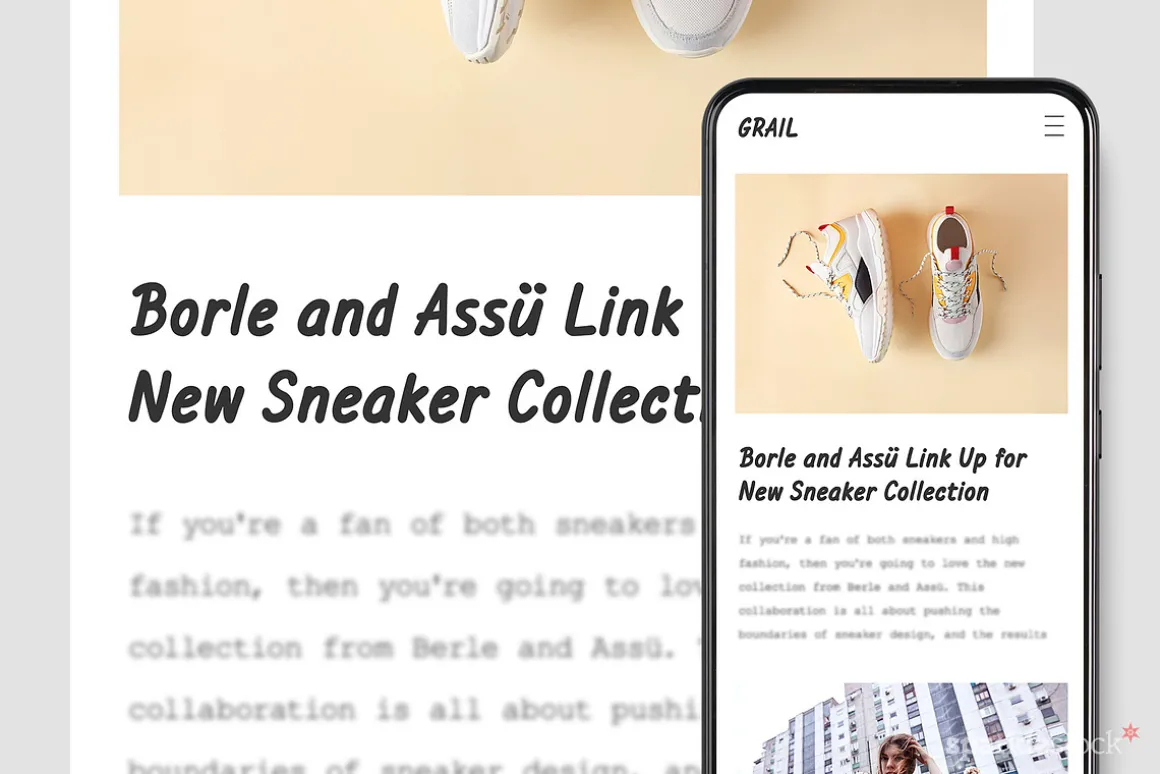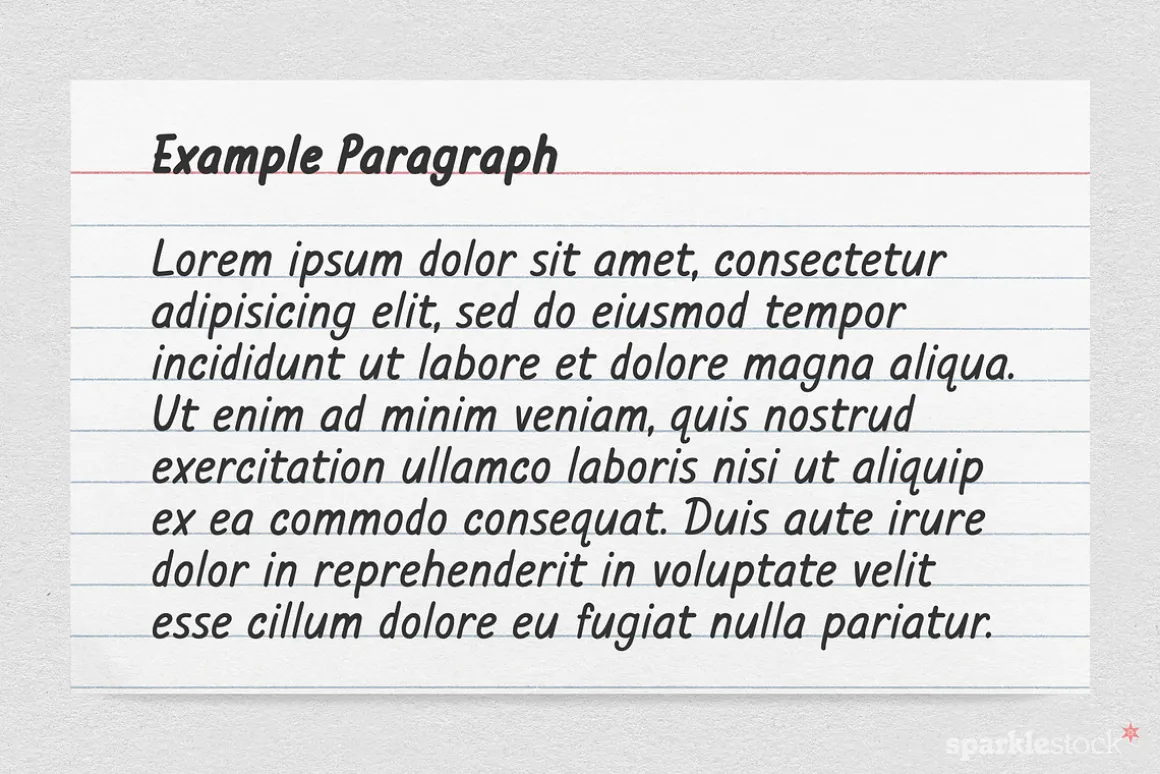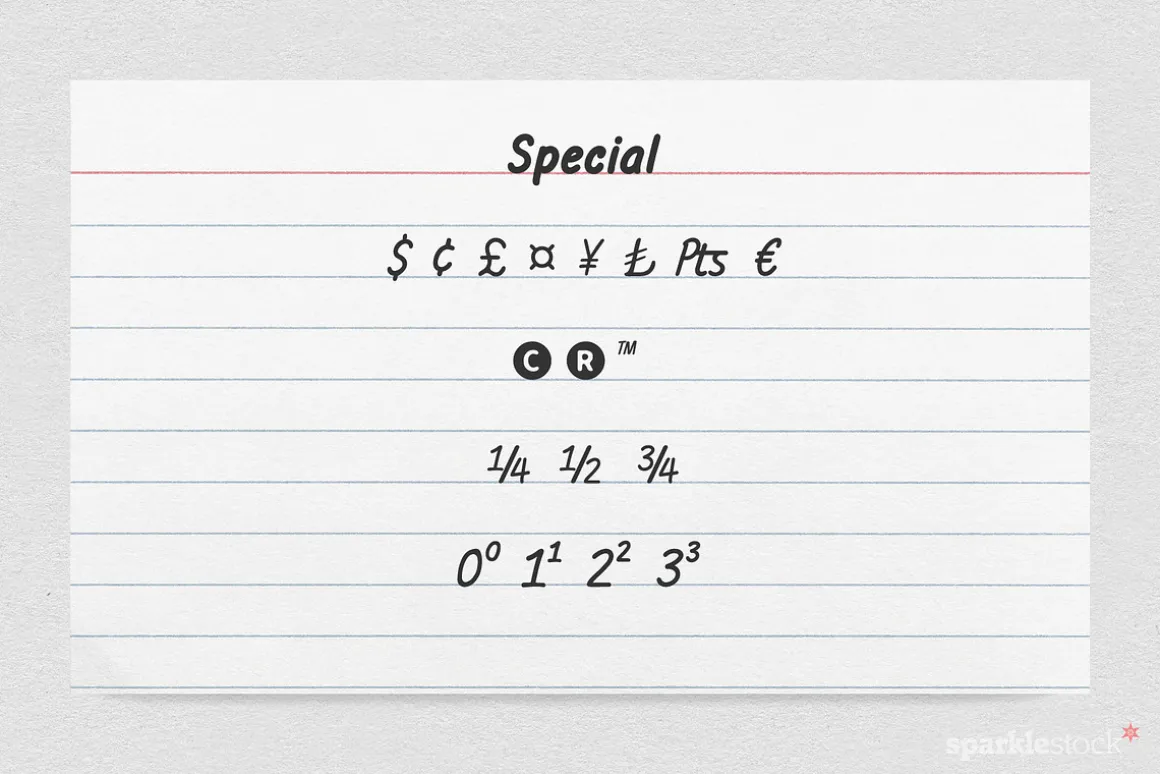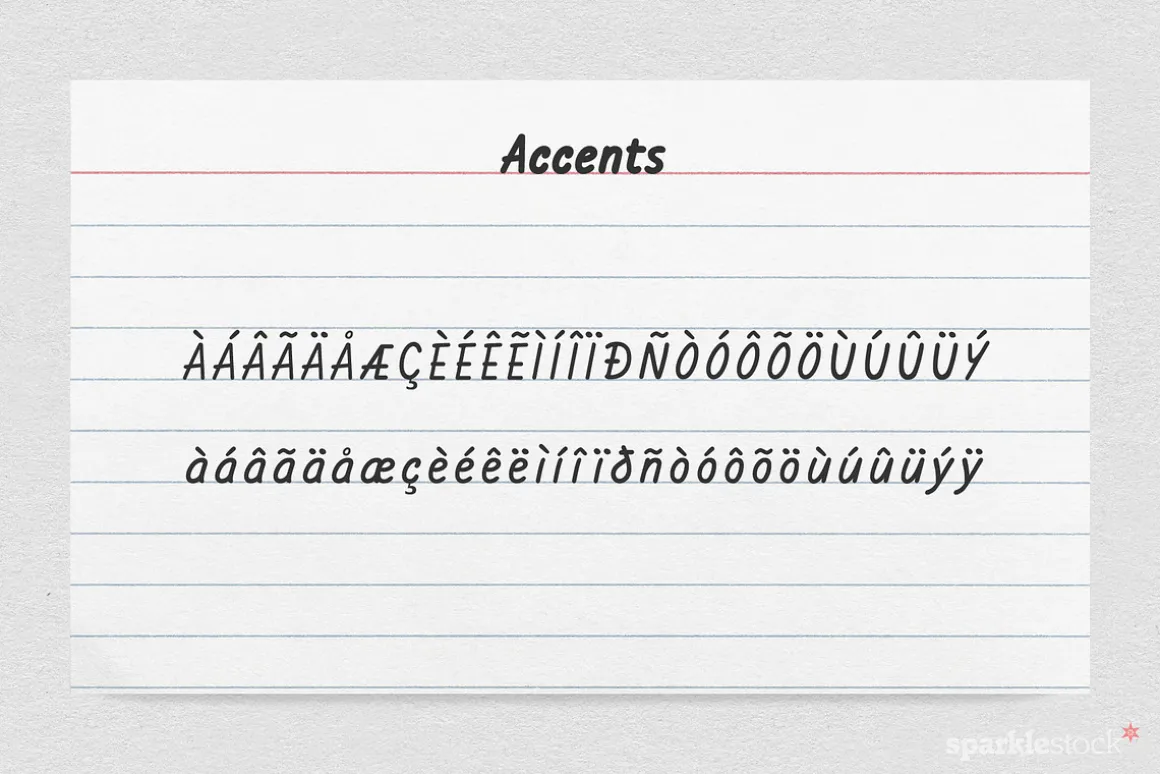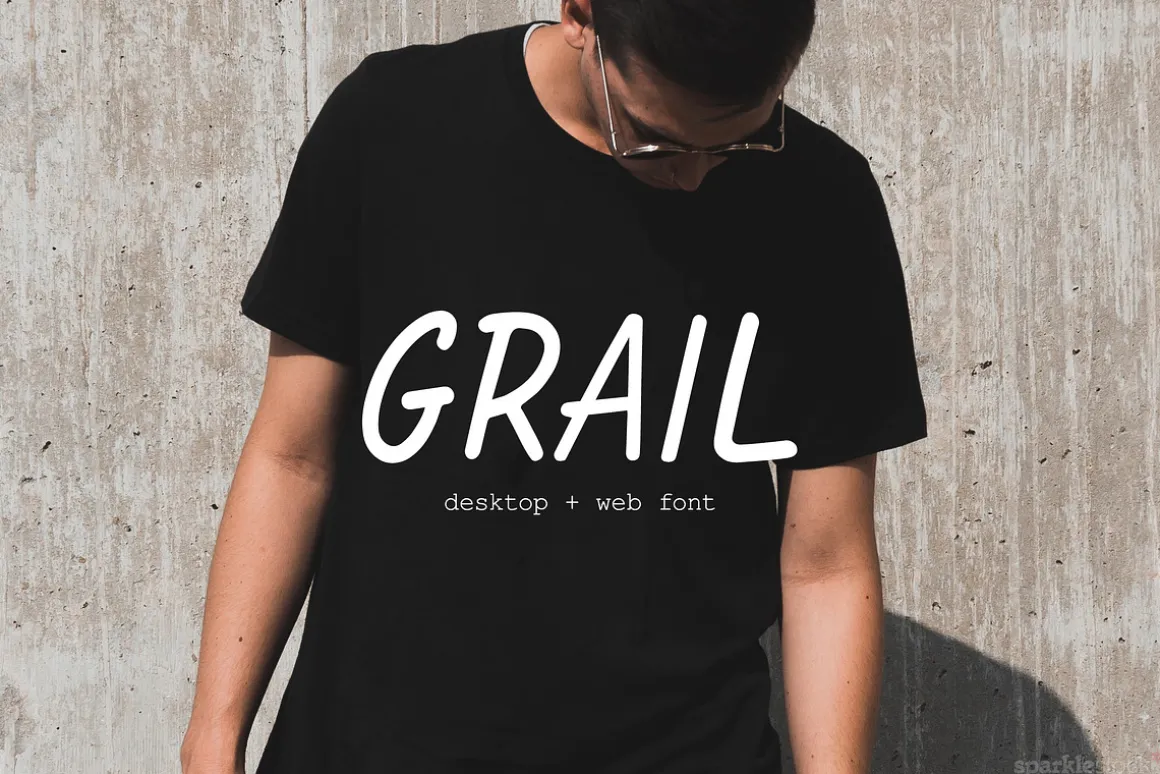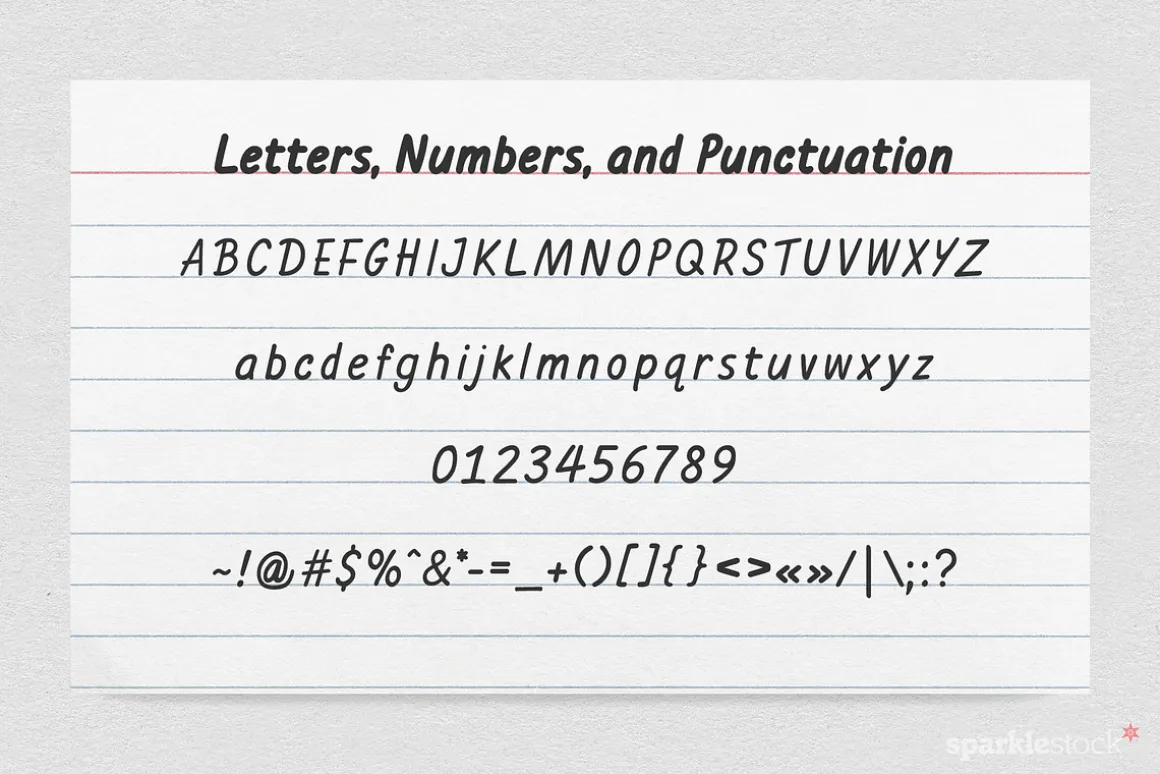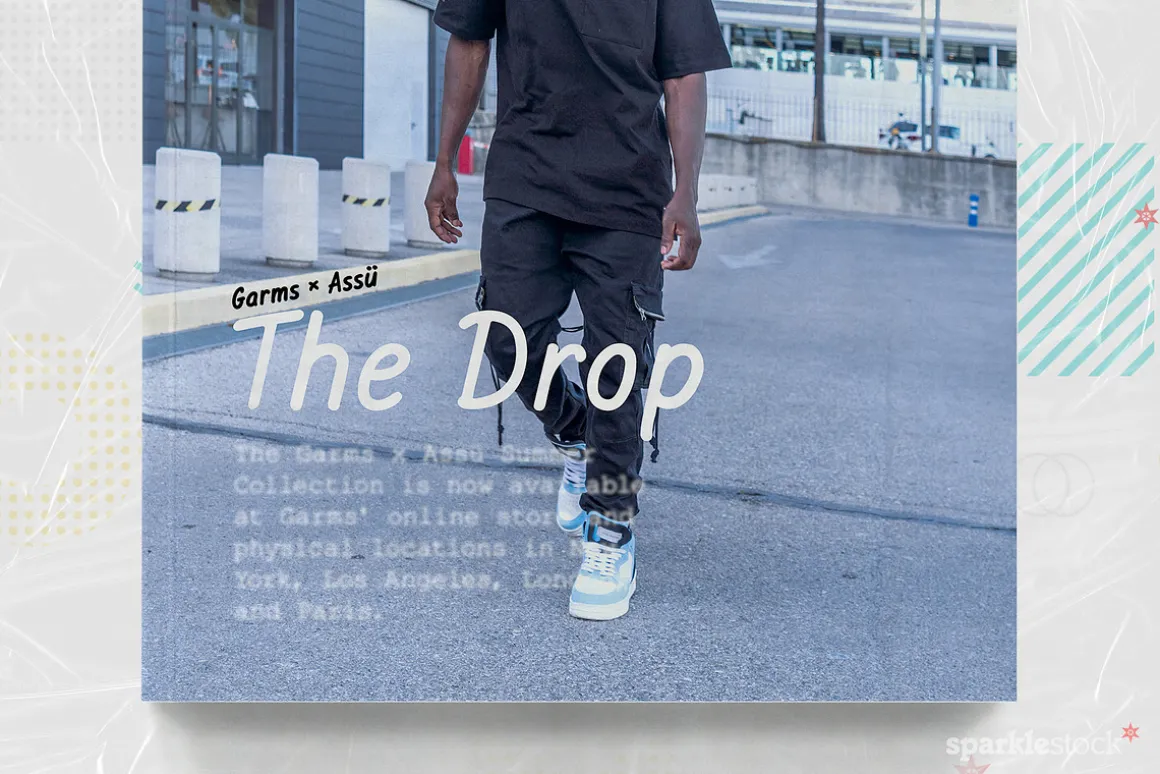
Drawing inspiration from the urban nature of streetwear culture, Grail is a blend of casual and confident. Its subtle imperfections exude a laid-back vibe, while the angled strokes lend a bold and daring edge. With Grail, designers can achieve a rebellious and contemporary look. This freehand font is ideal for brands looking to make a statement and stand out from the crowd. The font’s versatility makes it ideal for a range of designs, from streetwear apparel to urban-themed logos and branding.
- Multilingual